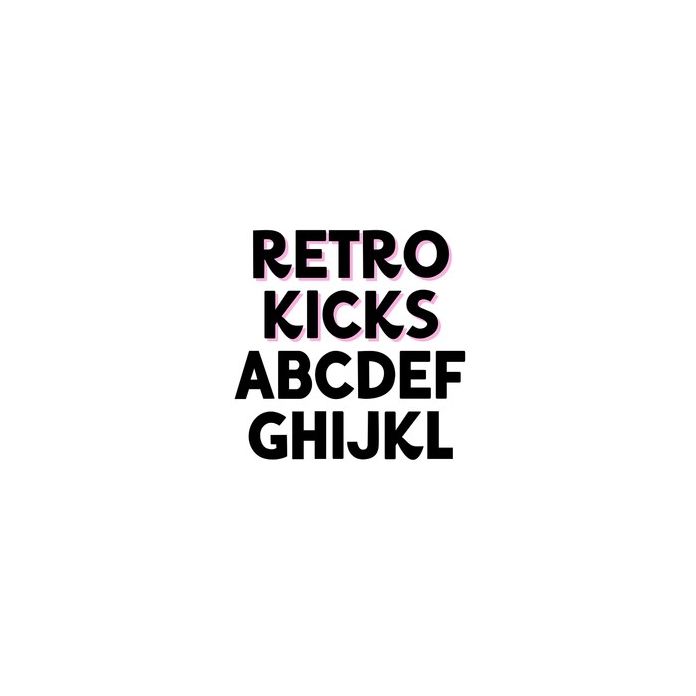
BFC Retro Kicks Bold Whimsical Chunky Display Block Font
Retro Kicks is a cute and whimsical display font! This font is a sibling to Sugar Maple, with a few characters changed.